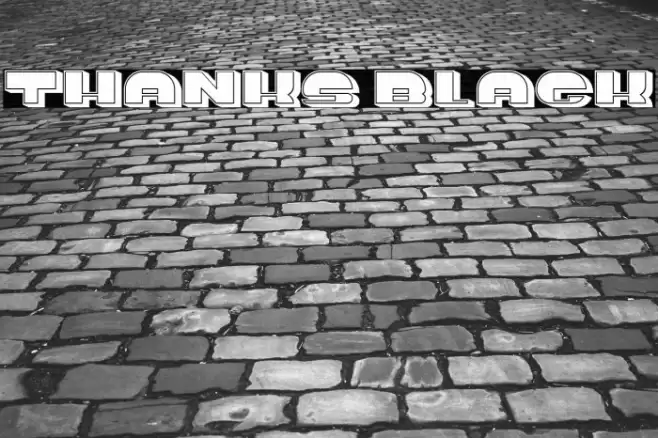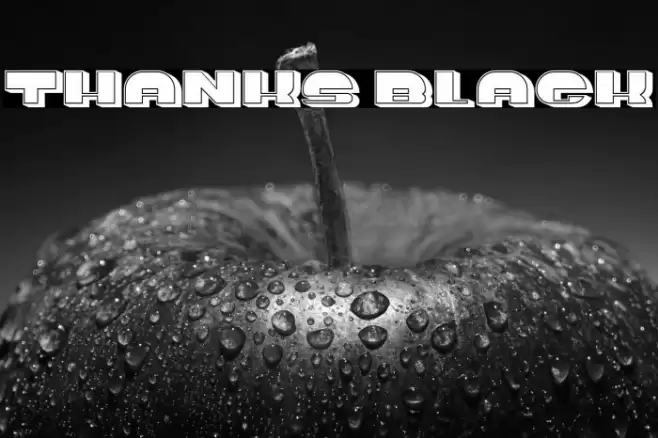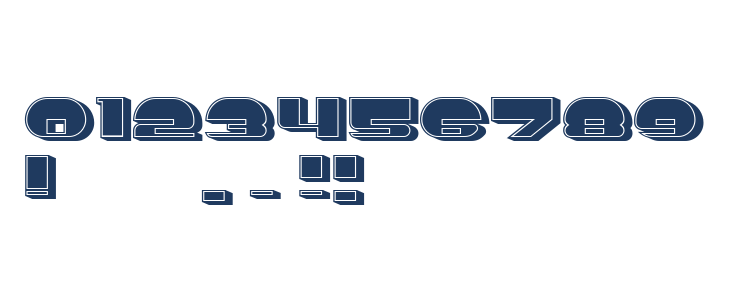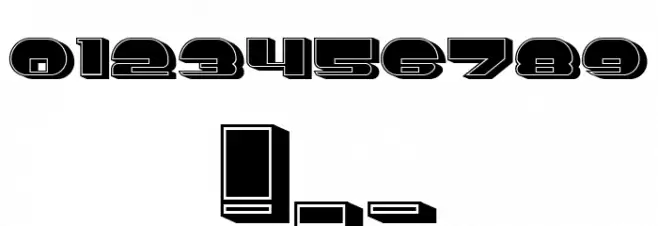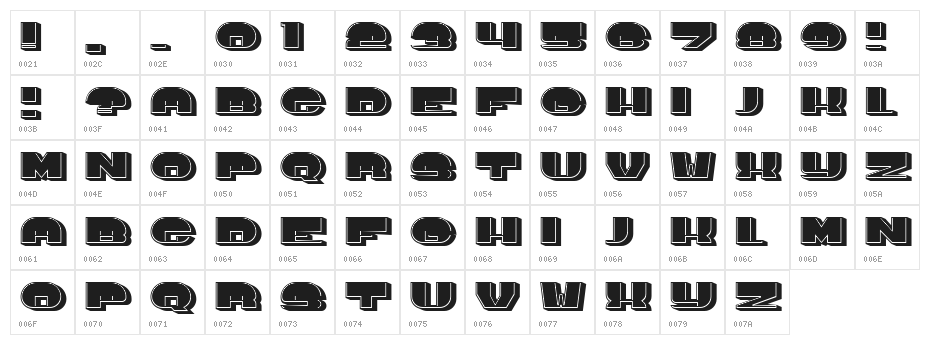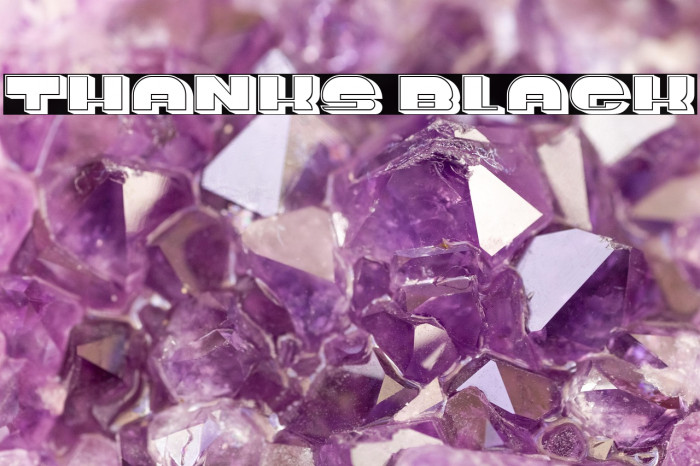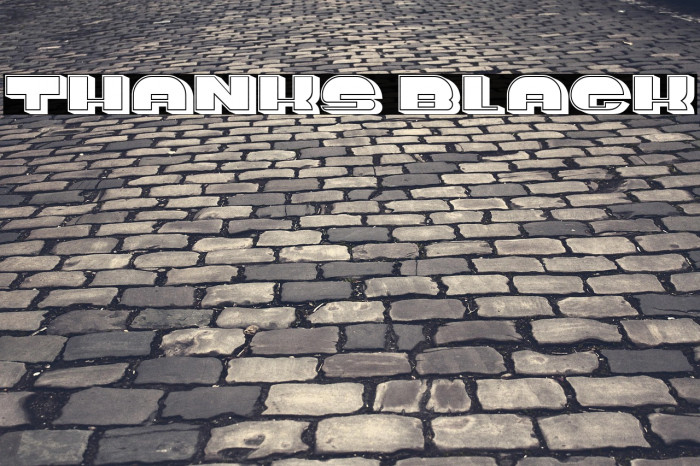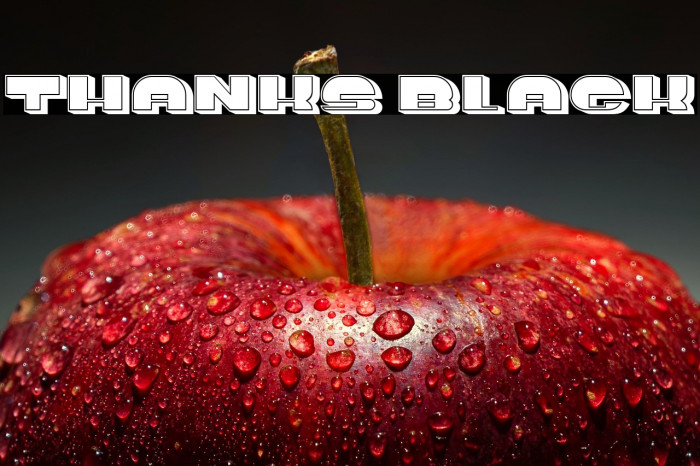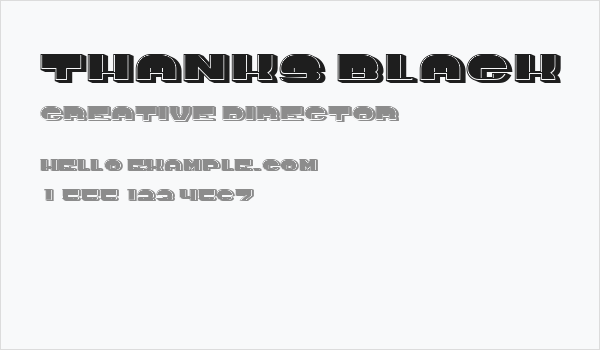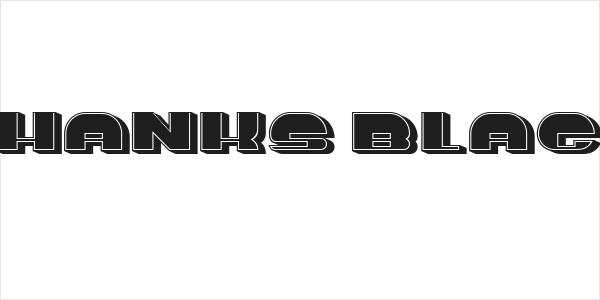
Thanks Black Font
Thanks Black Description
This font features a bold, three-dimensional style with a strong presence. The letters are blocky and geometric, with a shadow effect that gives them a sense of depth. The design is consistent across uppercase, lowercase, and numerical characters, maintaining a uniform appearance. The font is highly decorative, making it suitable for eye-catching designs. Its boldness and unique style make it ideal for projects that require a standout typeface. The special characters are designed to match the overall aesthetic, ensuring cohesion in any design.
A bold, three-dimensional font with a geometric and shadowed style from Uncategorized fonts.
- Proposed Projects: Ideal for posters, logos, headlines, and any design needing a bold, attention-grabbing font.